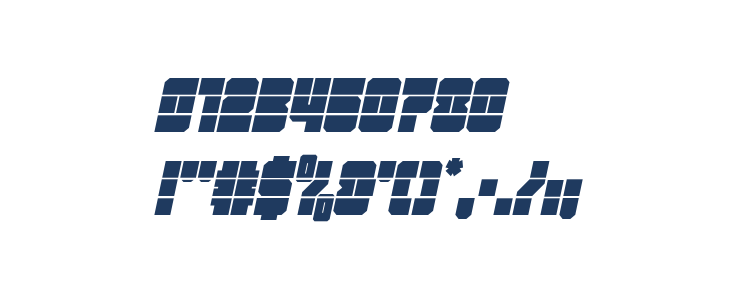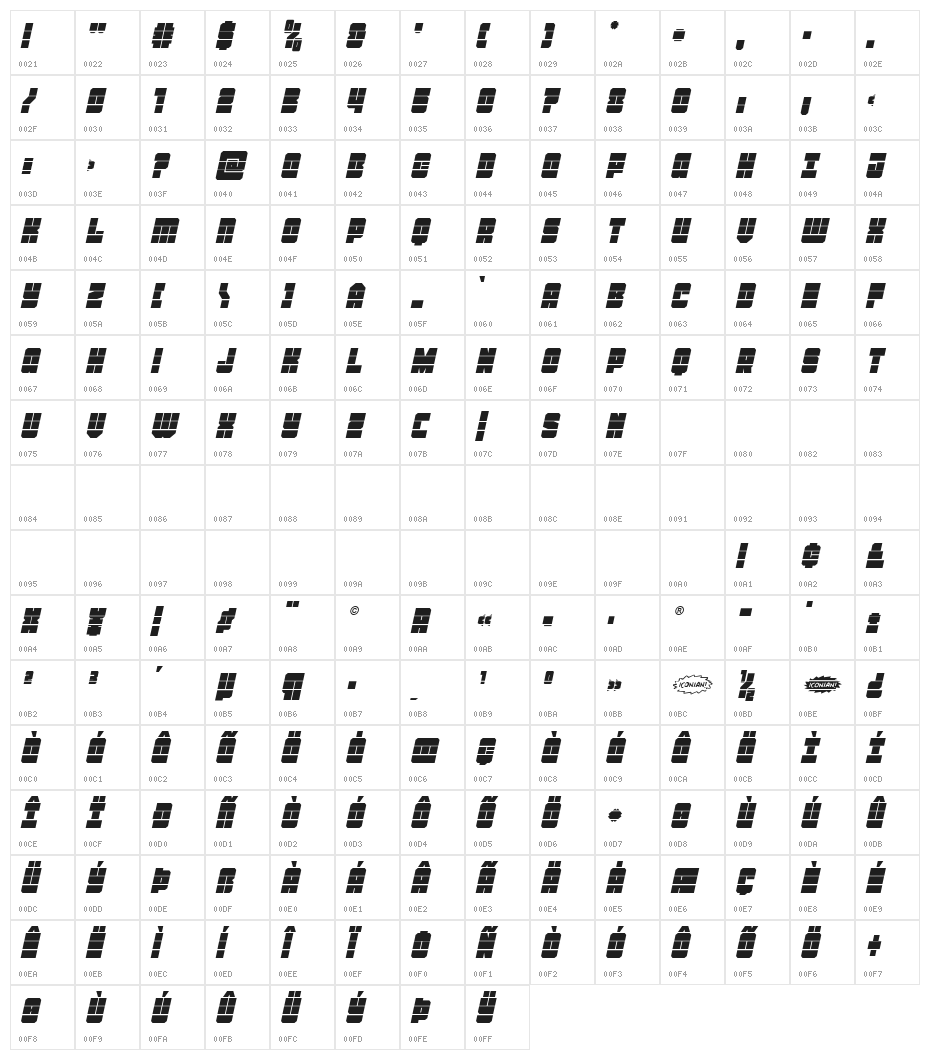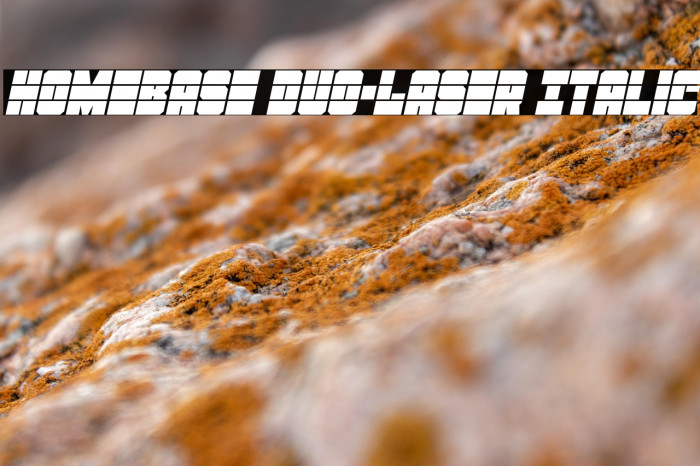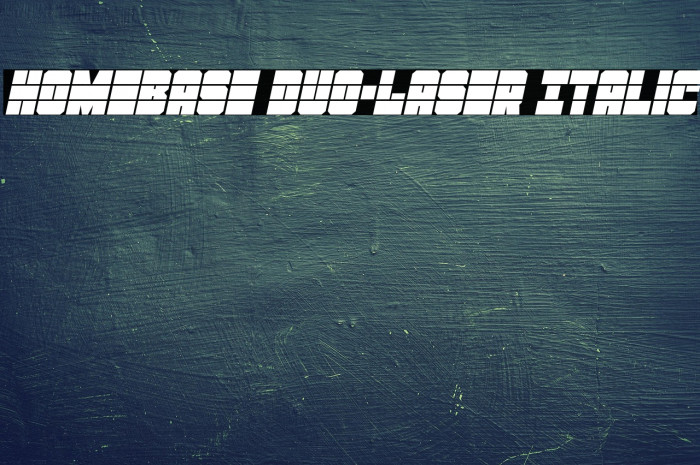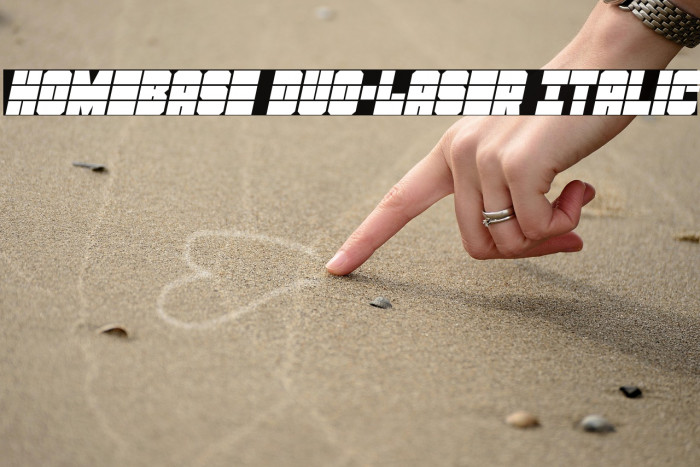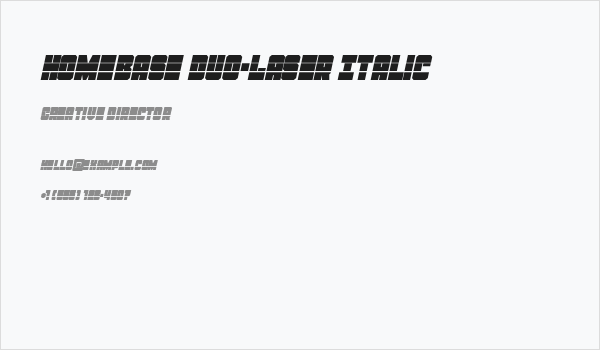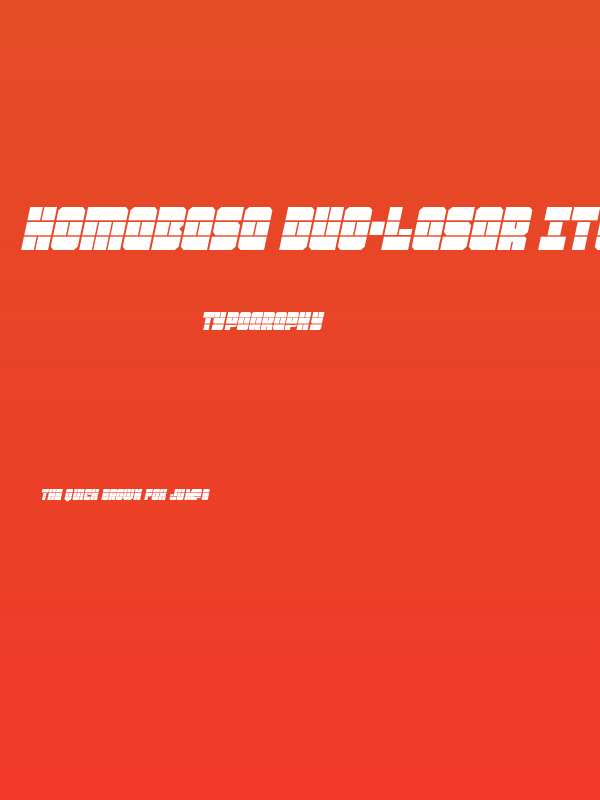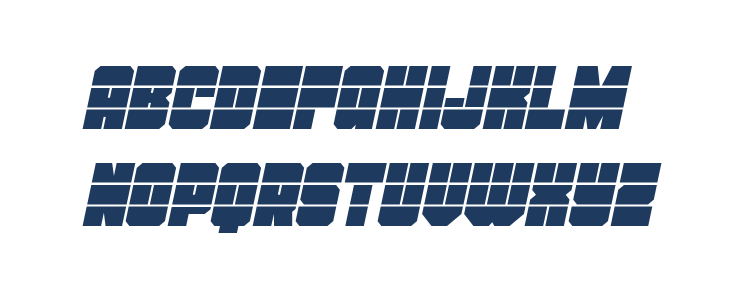
Homebase Duo-Laser Italic Font
Homebase Duo-Laser Italic Description
This font features a bold, geometric design with a futuristic flair. The characters are constructed with thick, block-like shapes that give a sense of solidity and strength. Each letter is composed of angular cuts and sharp edges, creating a dynamic and energetic appearance. The italic style adds a sense of motion and speed, enhancing its modern aesthetic. The font's unique structure makes it stand out, with each character having a distinct presence. This style is particularly effective for creating a strong visual impact, making it suitable for attention-grabbing headlines and titles.
| Proposed Projects | Ideal for sci-fi themed projects, technology branding, video game titles, and dynamic posters. |